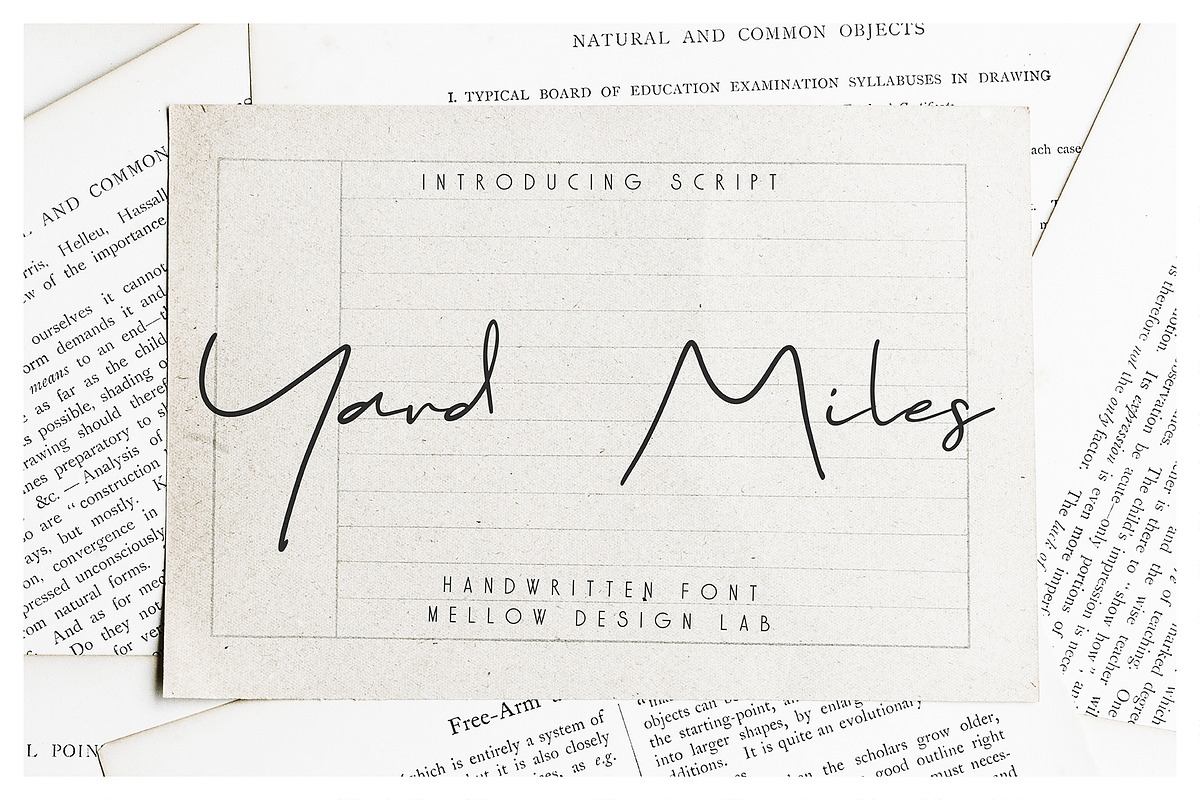
Yard Miles Script Font is perfect for travel agency branding, adventure tourism promotions, journey-themed designs, wanderlust marketing campaigns, outdoor expedition materials, road trip planning graphics, exploration company logos, adventure gear packaging, travel blog headers, nomadic lifestyle brands, destination wedding invitations, and inspiring travel communications.
Yard Miles Script Font is exciting because it captures the adventurous spirit and endless wanderlust of long-distance journeys through its flowing script letterforms that embody the freedom of open roads, distant horizons, and the transformative power of travel experiences. This inspiring typeface features dynamic curves and energetic character connections that mirror the rhythm of movement and the excitement of discovering new destinations. The font's adventurous aesthetic creates instant connections with audiences who value exploration, discovery, and the life-changing experiences that come from traveling yard by yard, mile by mile.
Yard Miles Script Font includes comprehensive font families: Regular Adventure Style, Bold Journey Weight, Light Wandering Touch, Medium Travel Balance, Italic Flowing Movement, Condensed Path Format, Extended Highway Width, Handwritten Explorer Version, Shadow Distance Effects, and Special Travel Symbols, providing complete solutions for adventure-themed and travel-focused design projects that celebrate exploration and journey experiences.
This inspiring typography solution transforms ordinary communications into compelling travel narratives through its authentic adventure aesthetic and journey-inspired design language. Yard Miles Script Font Free Download enables designers and travel brands to access premium adventure typography that instantly adds wanderlust, inspiration, and travel appeal to any creative project. The font's carefully crafted flowing elements ensure authentic movement character while maintaining excellent readability and distinctive adventure presence.
Travel companies, adventure brands, and exploration businesses trust Yard Miles Script Font for its ability to communicate freedom, wanderlust, and transformative travel experiences to audiences seeking authentic adventure opportunities and meaningful journey connections. The typeface's dynamic construction performs beautifully across various applications, from intimate travel journals to large-scale tourism campaigns. Its extensive character support includes multilingual capabilities and travel-themed design elements that enhance adventurous brand presentations.
The creative inspiration behind Yard Miles Script Font draws from the universal human desire for exploration, the romance of long-distance travel, and the personal growth that comes from venturing beyond familiar territories. This journey-focused approach creates a font that feels genuinely adventurous while maintaining contemporary appeal across different travel contexts and exploration brand expressions.
Whether creating travel agency identities, adventure tourism materials, or wanderlust marketing campaigns, this script font delivers exceptional results that inspire audiences to embrace their adventurous spirit. Download Yard Miles Script Font today and discover how premium travel typography can transform your design projects into inspiring expressions of adventure, exploration, and the endless possibilities that await every traveler willing to go the distance, yard by yard, mile by mile.